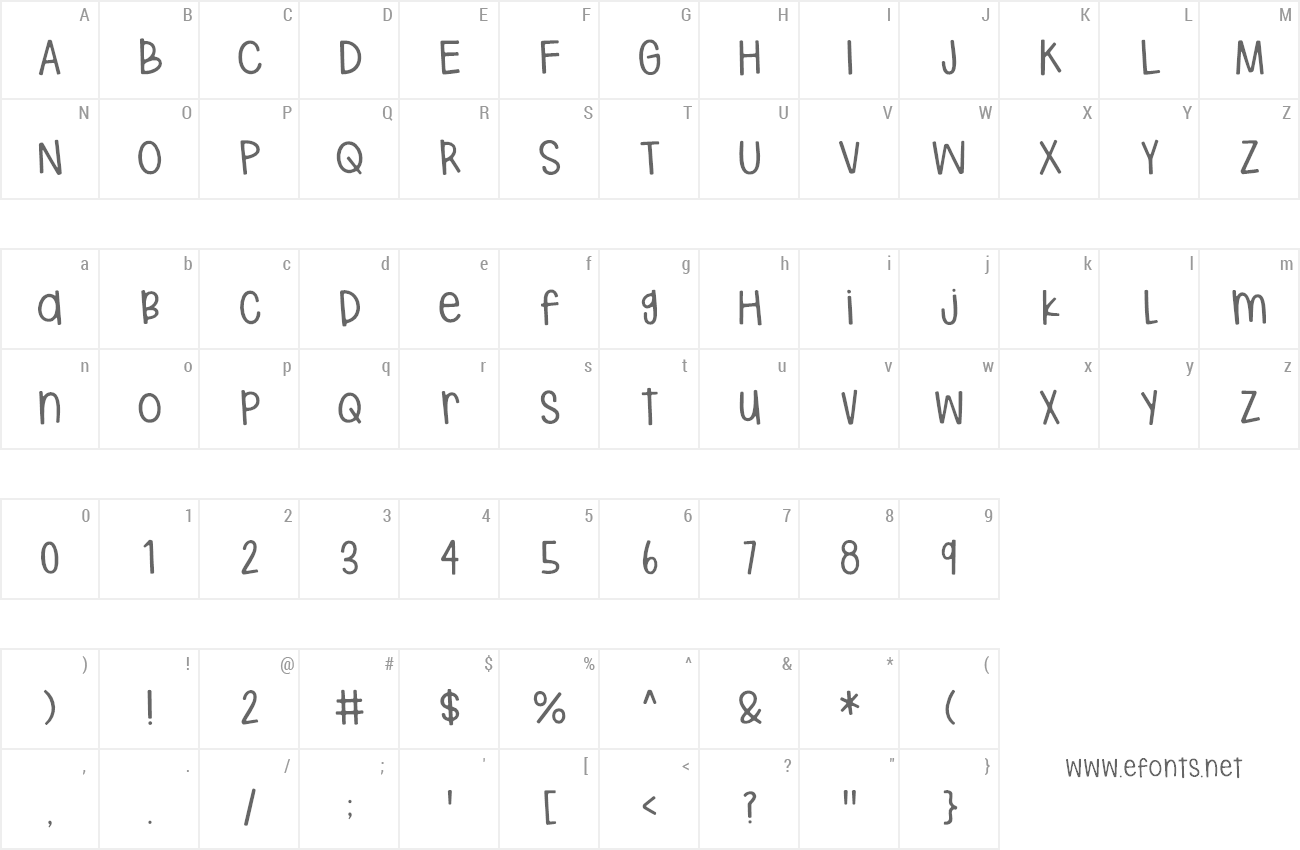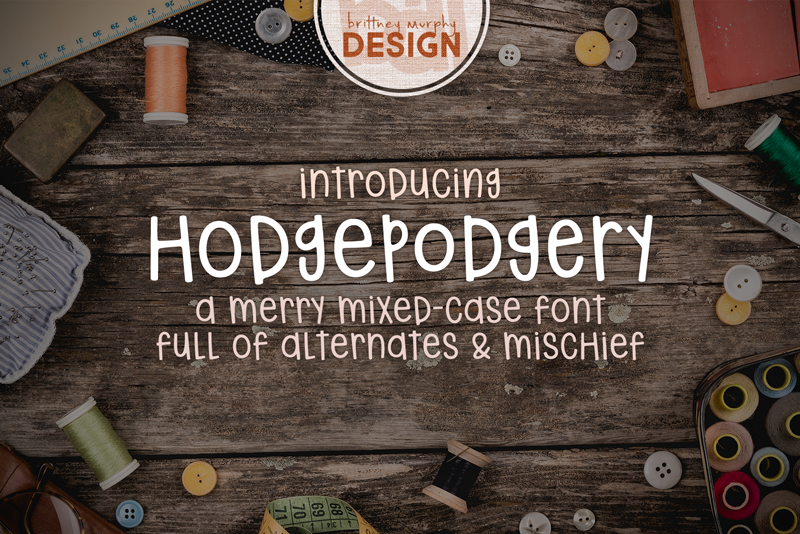
| Font name: | Hodgepodgery |
| Author: | Brittney Murphy Design |
| Note by Brittney Murphy Design | |
Hodgepodgery is a playful mixed-case font with alternates. Since all the letters are the same height, it works great for multi-line designs! Free for personal use ONLY. For commercial use, please purchase a license: https://brittneymurphydesign.com/downloads/hodgepodgery/ |